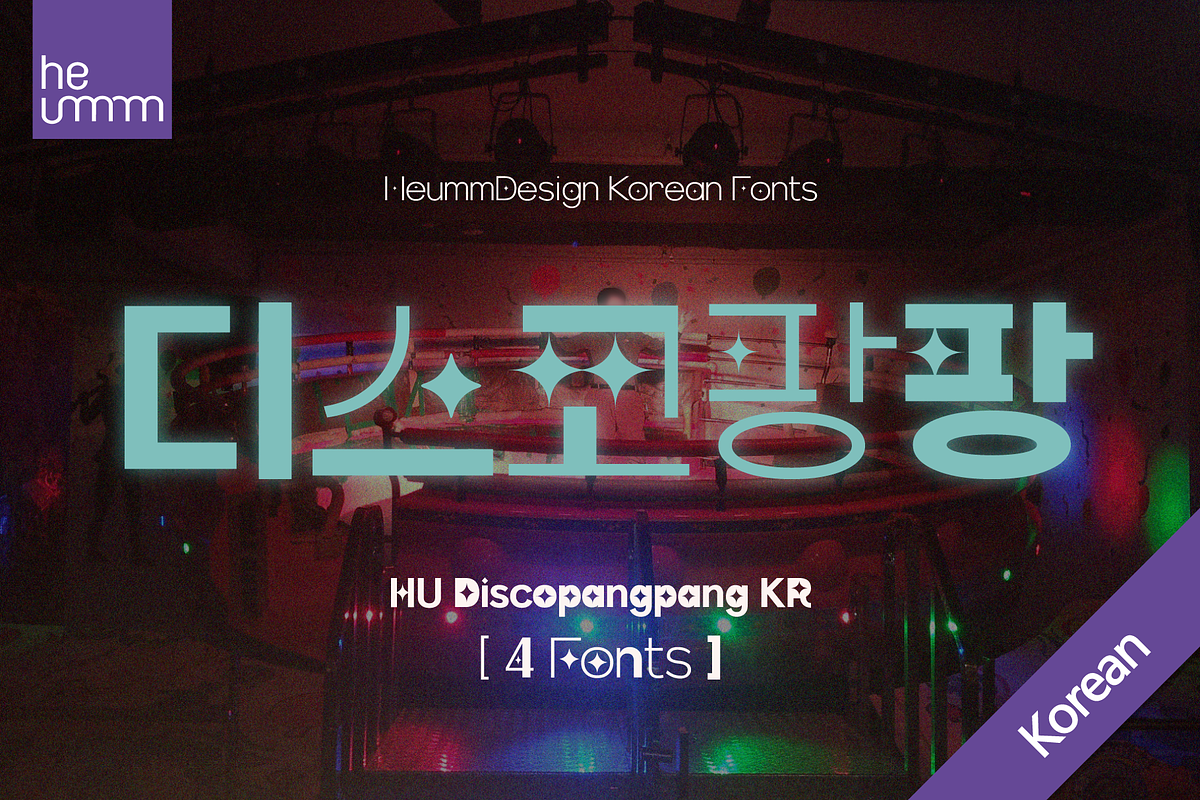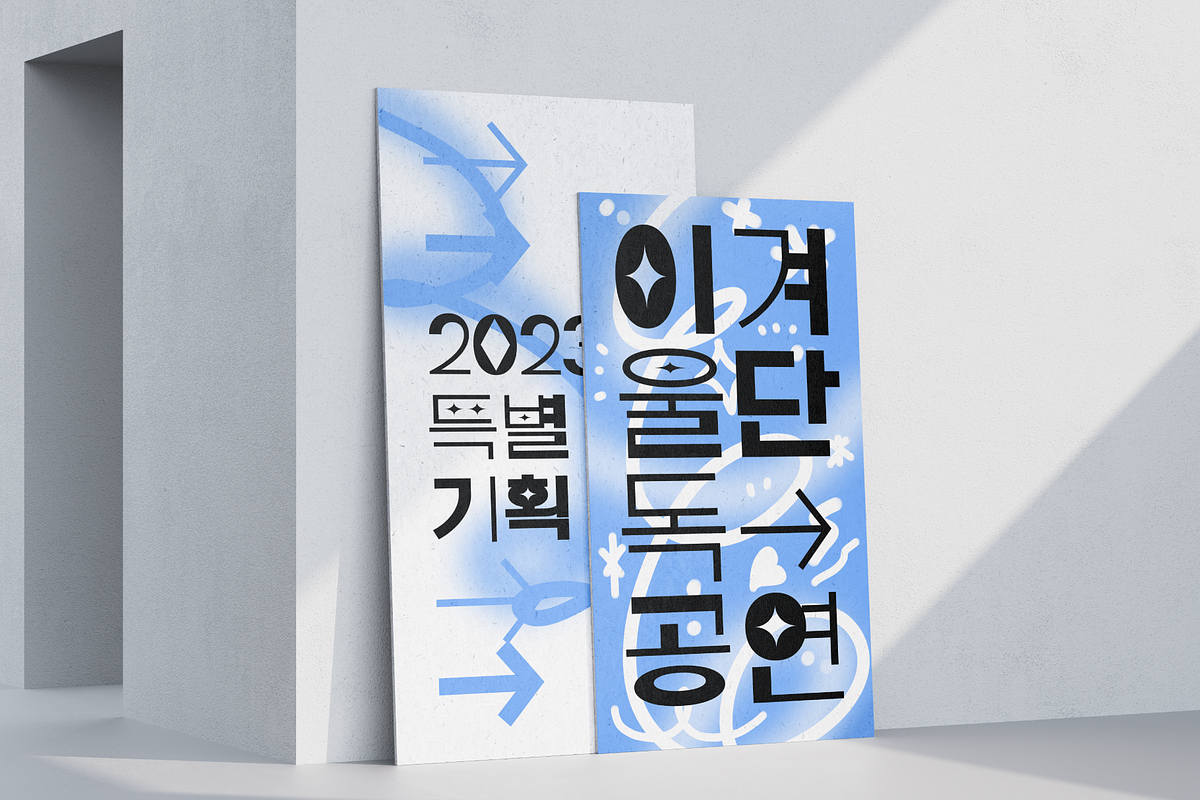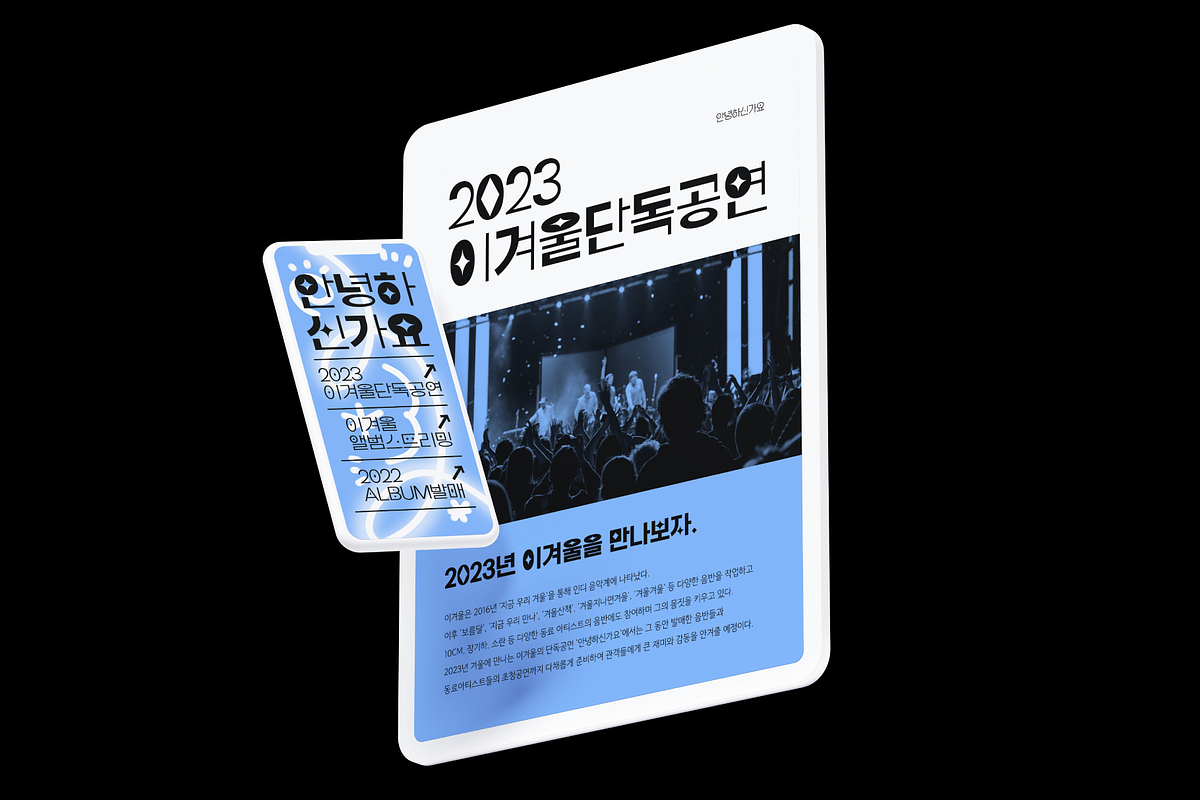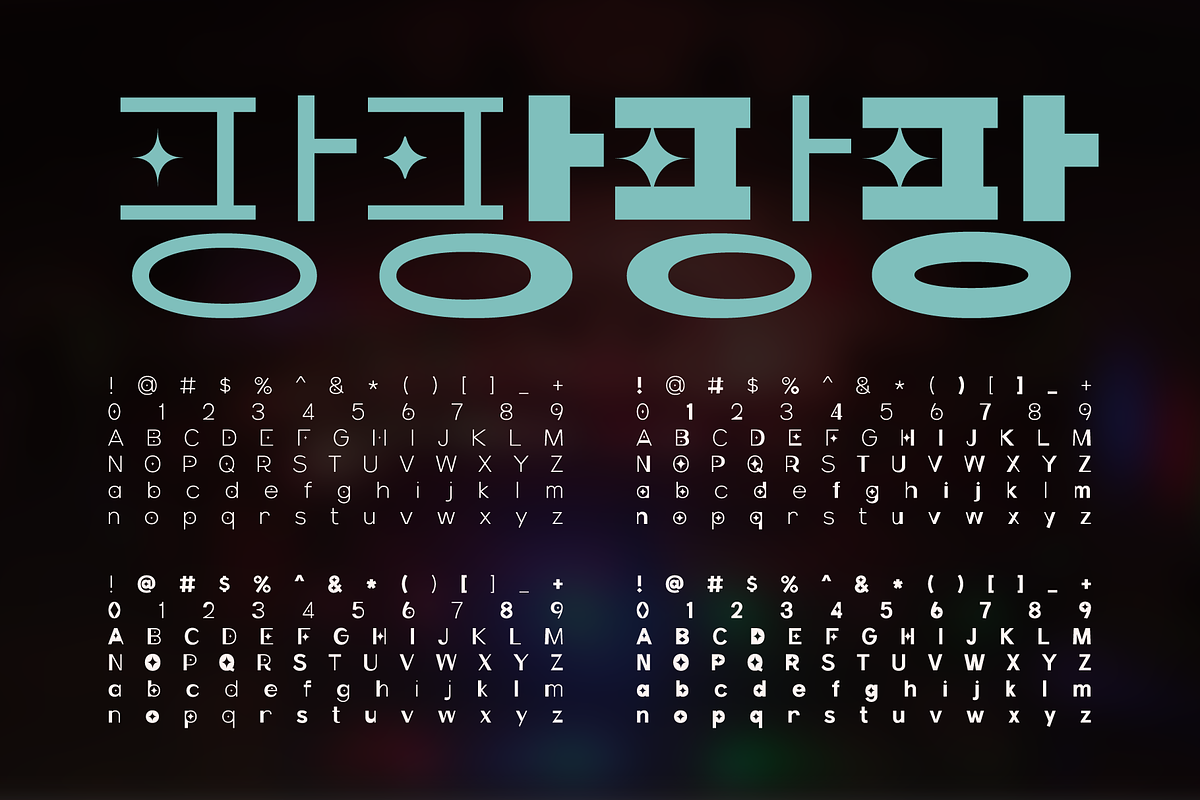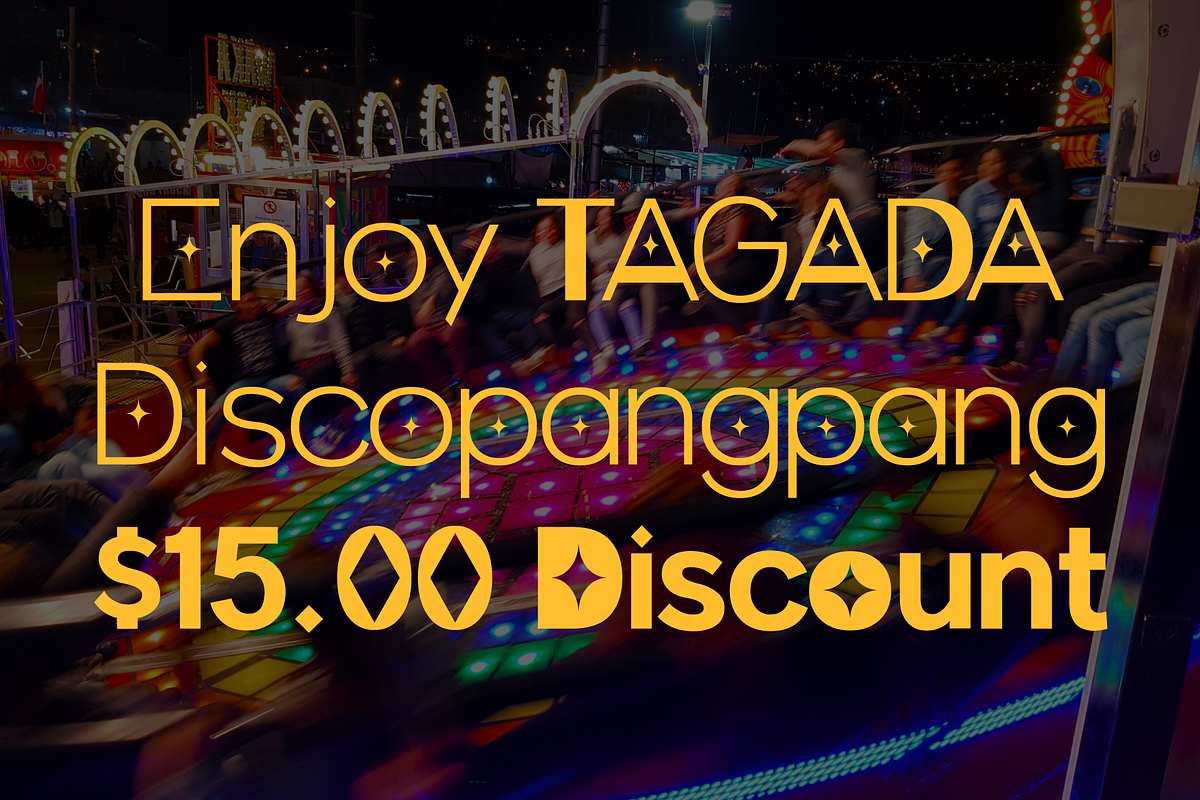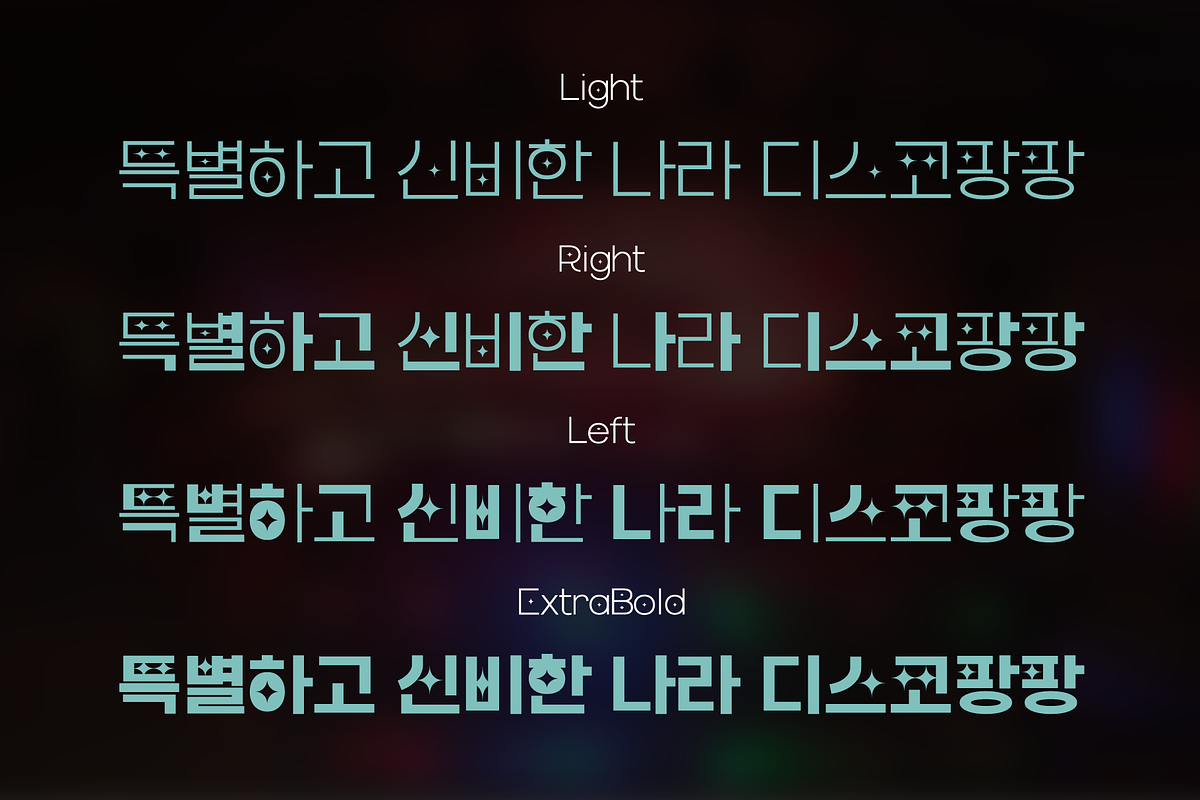
HU Disco Pang Pang is the Korean name for Tagada rides HU Tagada is a characteristic typeface that is good to use when you want to make use of a unique and bouncy feeling.
Light and Extrabold are made with the thickness of normal typefaces, but Left and Right have strange shapes with stroke thicknesses that are biased to one side.
Its unique shape can make a strong impression on people.
There is 4 weight of HU Discopangpang KR : Light, Left, Right, ExtraBold